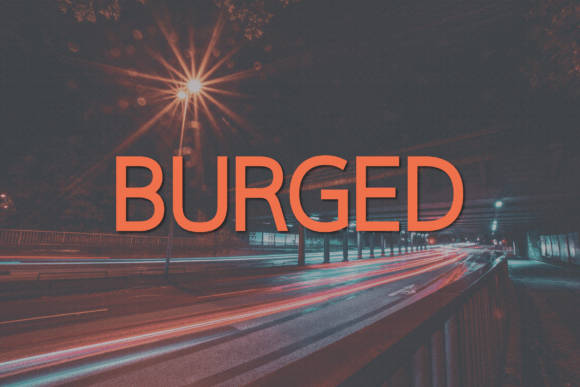
Enter the Burged Font, a modern, classy sans serif typeface designed to take your designs to the next level. This versatile font is perfect for logos, weddings, invitations, quotes, advertisements, print, magazines, and more. With its clean lines and sophisticated feel, the Burged Font is sure to make your designs stand out. Whether you’re a seasoned designer or just starting out, the Burged Font is a valuable addition to your toolkit.
Burged Font Key Features
- Font Family: Burged Font is a sans-serif font family designed for digital use.
- Font Size: Burged Font comes in multiple weights, ranging from 100 to 900, allowing for flexible use in various design contexts.
- Resolution: Optimized for high-resolution displays, making it suitable for use in digital interfaces and publications.
- Unique Characteristics: Burged Font features a distinctive geometric shape and clean lines, giving it a modern and minimalist aesthetic.
Burged Font Review
At first glance, I was drawn to Burged Font’s unique aesthetic. The blend of bold lines and rounded edges creates a visually appealing contrast that can elevate a design. ✨ The font’s versatility also allows it to work well in both digital and print formats.
However, I do have some reservations about the font’s limitations. ⚠️ One of the main concerns is the font’s weight. While it’s great for headings, it can be challenging to read in smaller sizes. Additionally, the font’s irregular shape can make it difficult to use in situations where readability is paramount.
Here are some key points to consider when using Burged Font:
- Works well in headings and titles
- Unique aesthetic adds visual interest
- Can be challenging to read in small sizes
- May not be suitable for situations requiring high readability
Overall, Burged Font is a great choice for designers looking to add some flair to their work. However, it’s essential to carefully consider the context and intended use before selecting this font.
For the best results, use Burged Font for headings and titles, as it is a bold and eye-catching font. It is also great for creating attention-grabbing social media graphics and advertisements. When using Burged Font, keep the background simple and let the text be the focal point.
Alternatives to Burged Font for Designers
Montserrat is a sans-serif font designed by Julieta Ulanovsky in 2011. It’s a great alternative to Burged Font when you need a clean and modern look. Montserrat is highly legible, making it perfect for body text and headings. It’s also available in multiple weights and styles, making it versatile for various design applications.
Comparison to Burged Font: Montserrat is more modern and has a more geometric feel, whereas Burged Font has a more vintage and distressed look. Montserrat is also more legible and easier to read, especially at smaller font sizes.
Alegreya is a serif font designed by Juan Pablo del Pino in 2010. It’s a great alternative to Burged Font when you need a sophisticated and elegant look. Alegreya has a beautiful, handwritten feel that’s perfect for titles and headings. It’s also highly customizable, making it perfect for branding and identity design.
Comparison to Burged Font: Alegreya is more elegant and sophisticated, whereas Burged Font has a more rugged and distressed look. Alegreya is also more versatile, with a wider range of customization options.
Playfair Display is a serif font designed by Claus Eggers Sørensen in 2011. It’s a great alternative to Burged Font when you need a luxurious and elegant look. Playfair Display has a beautiful, vintage feel that’s perfect for titles and headings. It’s also highly customizable, making it perfect for branding and identity design.